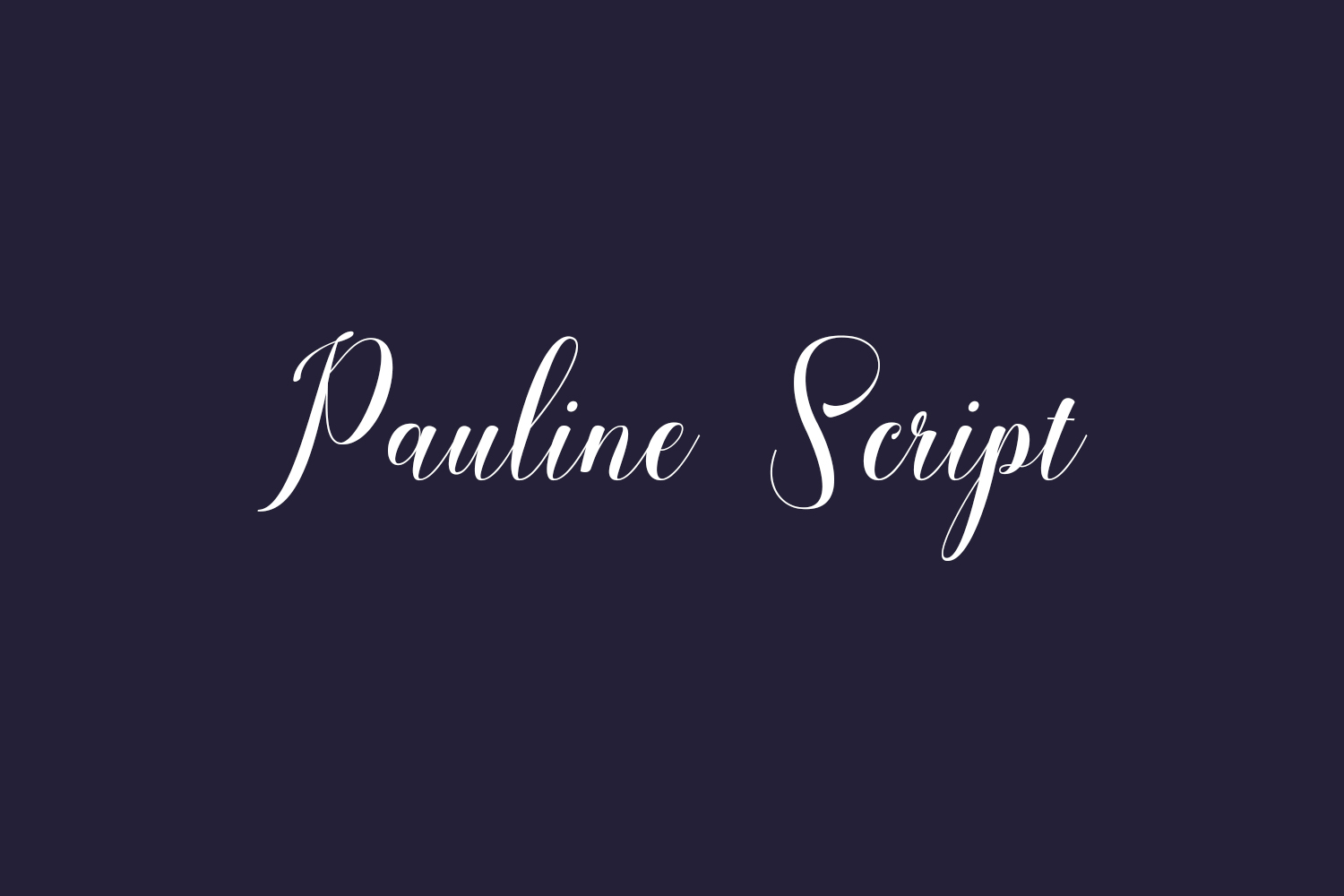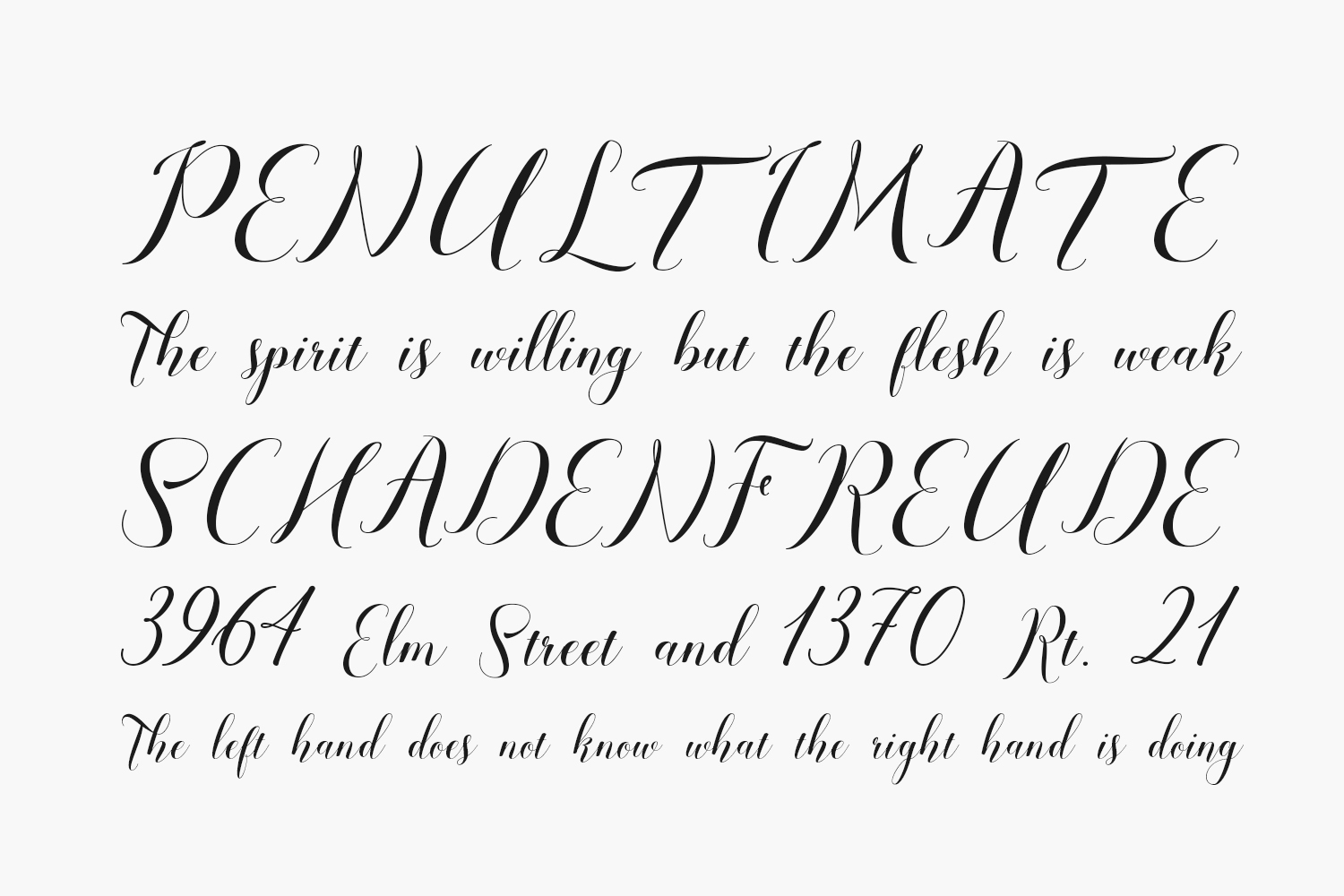
Pauline Script Font Free Font is a stunning, handwritten calligraphy-style font that features over 480 unique glyphs. Pauline Script Font Free Font was designed by Cooldesignlab and is free for personal use only. Please purchase the full version for commercial use.